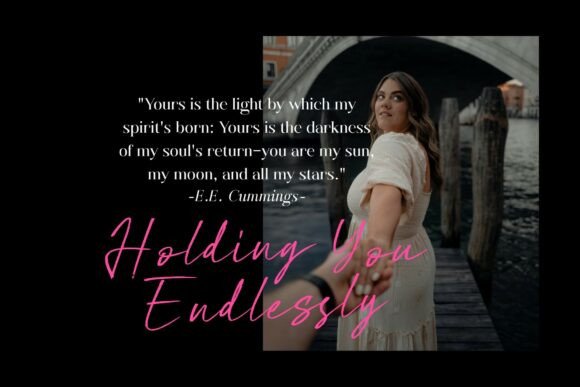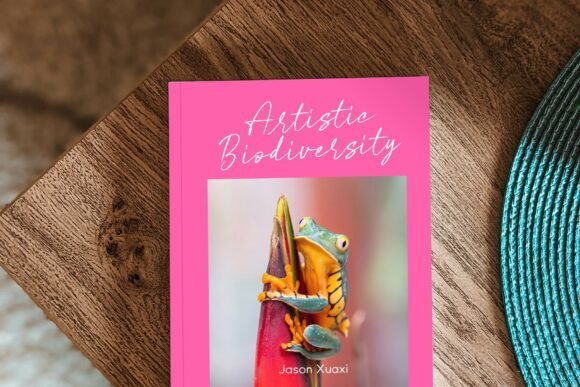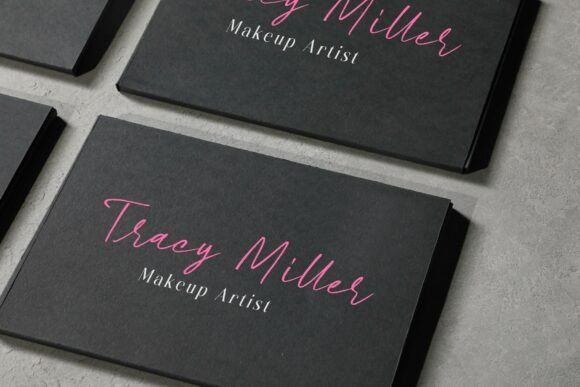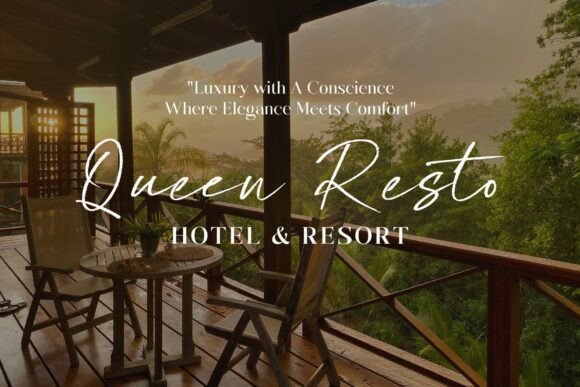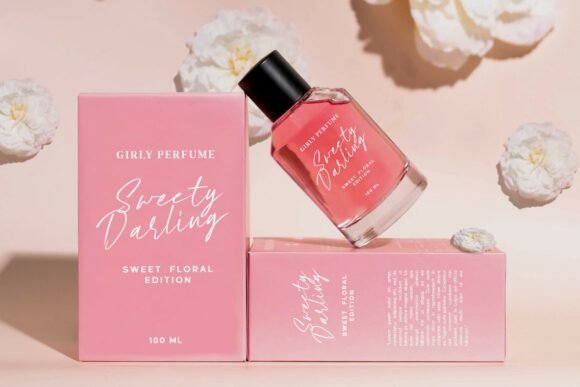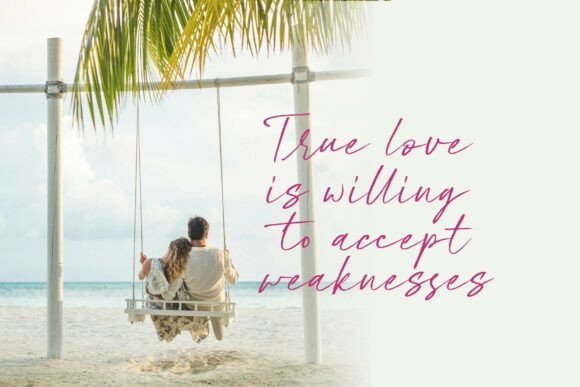
Introduction to Pinky Gallito Font
Have you ever sat at your desk, pen in hand, trying to bring a creative idea to life? The scratch of the pen against the paper, the ink bleeding through, creating a unique and imperfect line. This is the moment that sparked the creation of the Pinky Gallito Font – a beautiful, handwritten typeface that captures the essence of a handwritten note.
As a designer, having access to high-quality design resources is invaluable. The Pinky Gallito Font is a treasure trove of creative possibilities, perfect for branding, logotype, and publishing projects. With its OpenType features, including ligatures, alternates, and multilingual support, you’ll have everything you need to bring your creative project to life.
Pinky Gallito Font
- Unique characteristics: whimsical, playful, and fun, making it perfect for children’s book illustrations, party invitations, and other creative projects.
- Designed to be highly legible, even at small font sizes, ensuring your message is conveyed effectively.
Honest Review: Pinky Gallito Font
I recently had the opportunity to work with the Pinky Gallito Font on a creative project and I must say it was a delightful experience. This free download is a high-quality resource that can elevate your design to the next level.
- ✨ High-quality glyphs: The Pinky Gallito Font boasts beautiful, intricate designs that are perfect for adding a touch of elegance to your creative project.
- ✨ Transparent background: This feature allows for seamless integration with any design element, giving you more flexibility in your creative process.
- ⚠️ Limited font styles: The Pinky Gallito Font currently only offers a few font styles, which may limit its versatility in certain design applications.
Overall, I’m impressed with the Pinky Gallito Font and would recommend it to designers looking for a high-quality, free resource to add some flair to their creative project.
The Pinky Gallito Font is a high-quality, free download design resource suitable for various creative projects. It features a transparent background, making it easy to integrate into different design elements.
Tips for Getting the Most Out of Pinky Gallito Font
Use the font in combination with other design elements to create a cohesive look.
Experiment with different font sizes and styles to add visual interest.
Pair the font with a transparent background to create a modern and sleek design.
Common Use Cases for Pinky Gallito Font
Use the font in social media graphics and advertisements.
Apply the font to business cards and marketing materials.
Integrate the font into presentations and reports for a professional look.
Alternatives to Pinky Gallito Font
Great Vibes Font is a high-quality, elegant script font ideal for a design resource that needs a touch of sophistication. It’s a good choice for a creative project that requires a more refined look. When to use: Wedding invitations, branding, magazine covers. How it compares: Great Vibes Font is more formal and elegant than Pinky Gallito Font, but still suitable for creative projects.